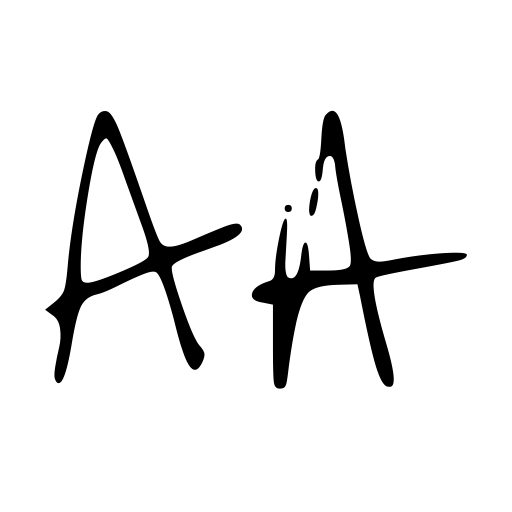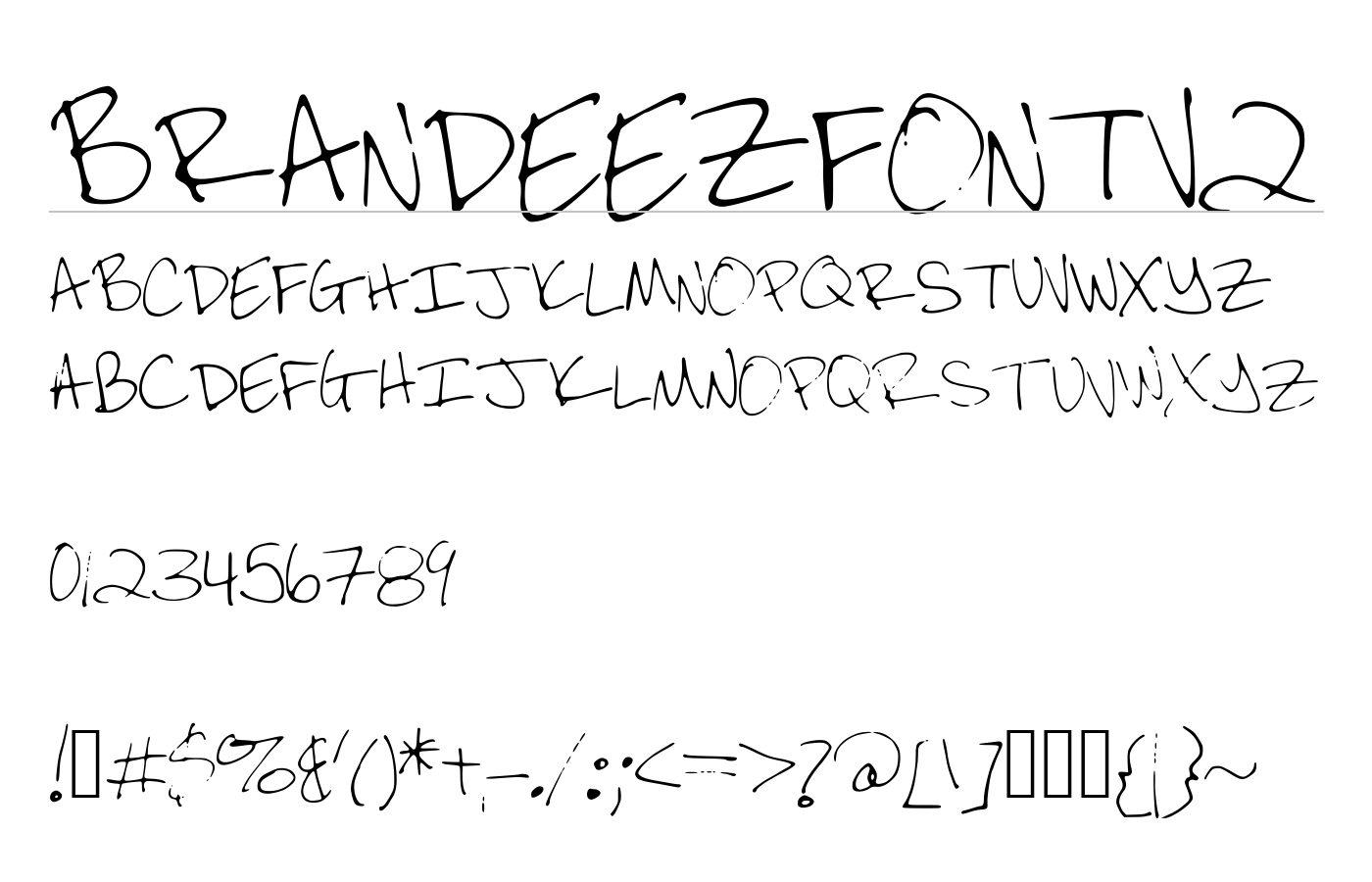
BRANDEEZFONTV2 is a lively, informal handwritten font that features irregular, playful strokes with a casual and slightly messy appearance. Its thin, varied line weights and quirky character shapes create a spontaneous and energetic feel, making it ideal for creative projects, personal branding, or youthful designs that need a fun and approachable vibe. This font works well for headlines, invitations, or any context where a unique, hand-drawn style adds personality.